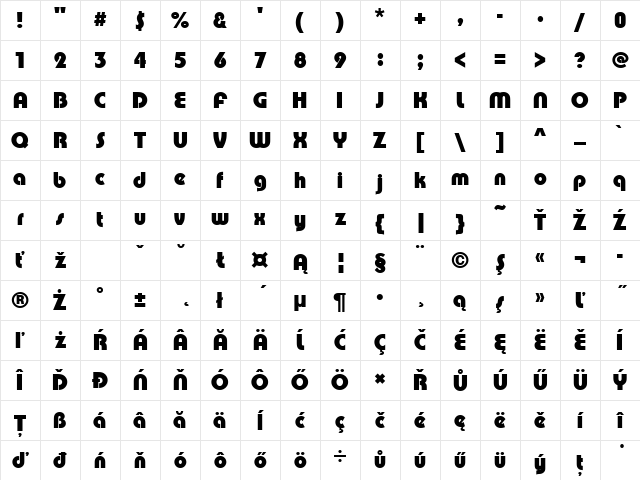
PumpDEEBol Regular
Design Context for PumpDEEBol
PumpDEEBol is a composed and adaptable typeface that performs quietly and consistently across a wide range of design contexts.